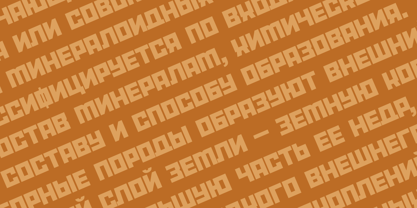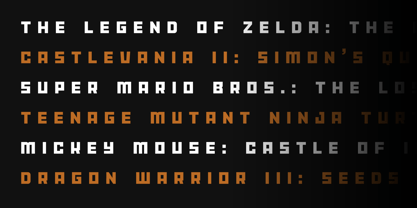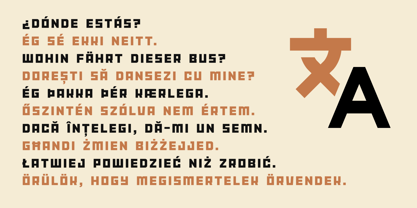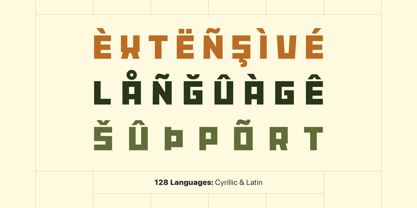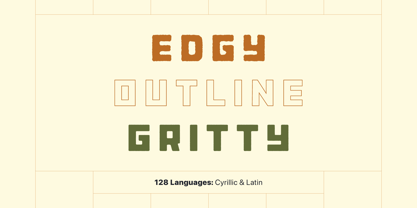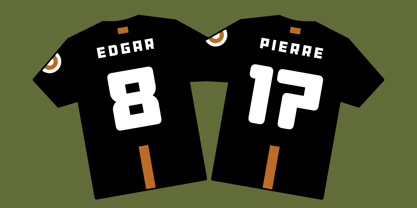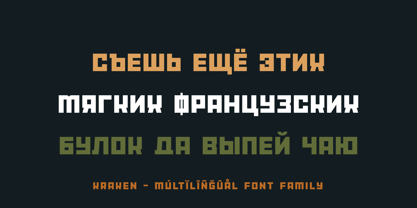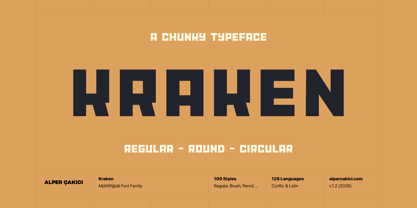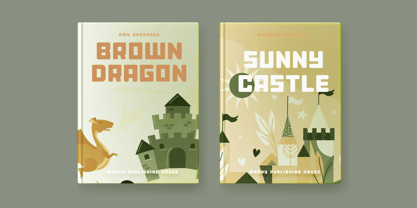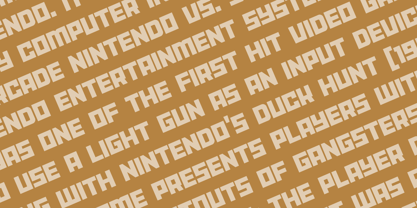
Kraken
by AlperCakici
The Kraken Font Family was designed by Alper Çakıcı and published by AlperCakici. Kraken contains 100 styles and family package options. More about this family
Kraken is a bold, chunky, and powerful display typeface designed to create a strong visual impact. With its solid structure and confident presence, it combines rugged texture with modern versatility. The font family offers an extensive range of styles, from clean and rounded to rough, gritty, chalky, and worn variations, providing designers with full control over tone and expression. Featuring 100 unique instances, including aged, brush, outline, sketchy, grainy, and more, Kraken adapts effortlessly to various applications such as branding, posters, packaging, headlines, and digital design. Its circular and rounded alternatives offer softer options, while edgy and distressed styles inject raw energy and character. Supporting both Latin and Cyrillic languages, Kraken ensures broad usability across global projects. Whether you're aiming for bold editorial statements or textured, handcrafted aesthetics, Kraken delivers strength, flexibility, and personality in every letter.